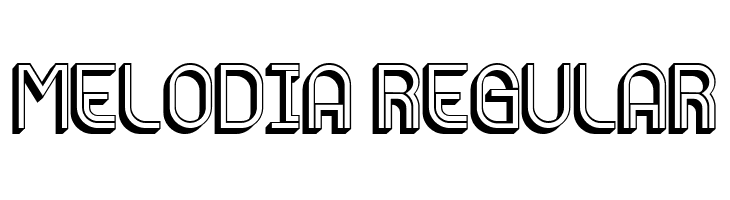
A bold, decorative font with a three-dimensional effect and geometric structure.
A bold, geometric font with a three-dimensional effect and strong visual impact.